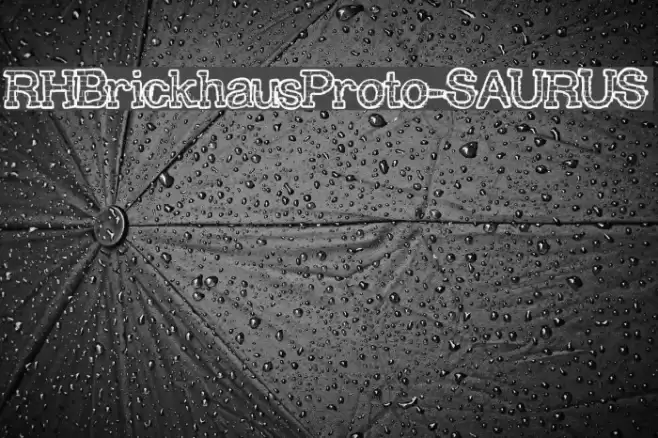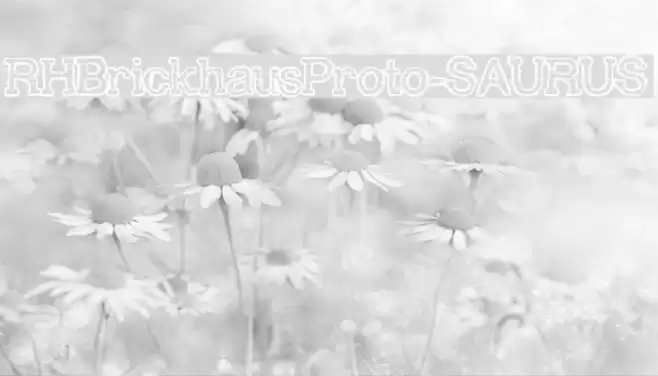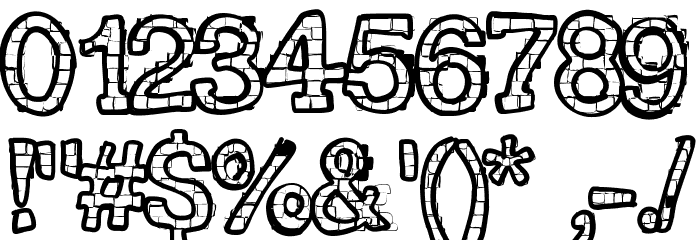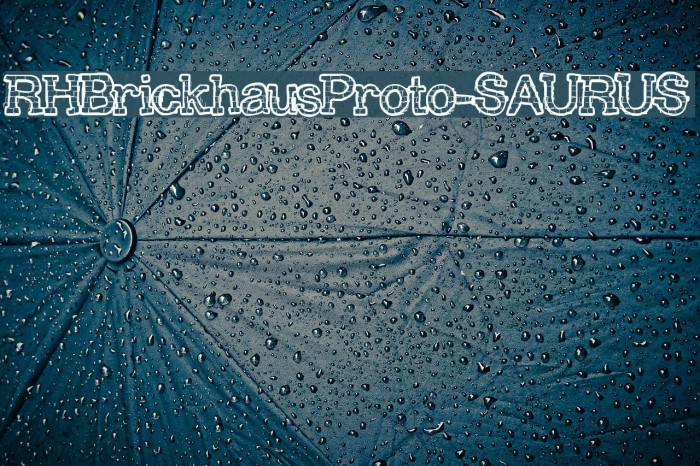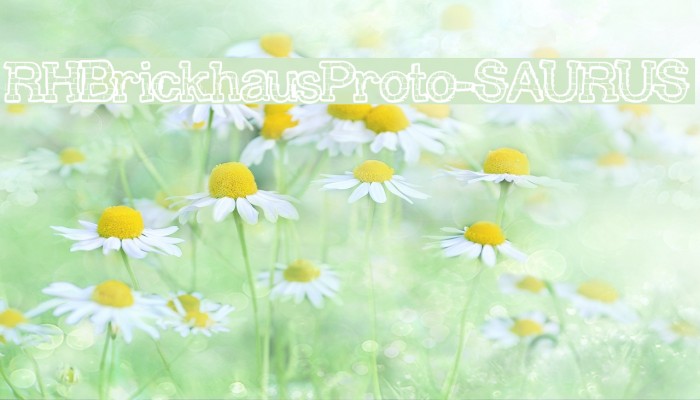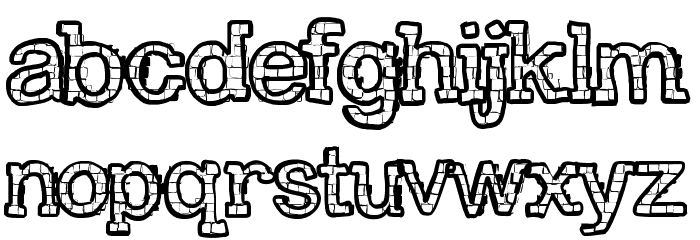
RHBrickhausProto-SAURUS Font
RHBrickhausProto-SAURUS Description
This font features a playful and creative design, characterized by a brick-like pattern that outlines each character. The letters are bold and have a three-dimensional appearance, giving them a unique and eye-catching look. The uppercase and lowercase letters maintain consistent styling, with rounded edges and uniform thickness. Numbers and special characters follow the same design principles, ensuring a cohesive look across all elements. This font is ideal for projects that require a fun and engaging visual element, such as children's books, posters, or themed events.
A playful, brick-patterned font with a bold, three-dimensional style from Cartoon fonts.
- Proposed Projects: Ideal for children's books, playful posters, themed events, and creative branding.